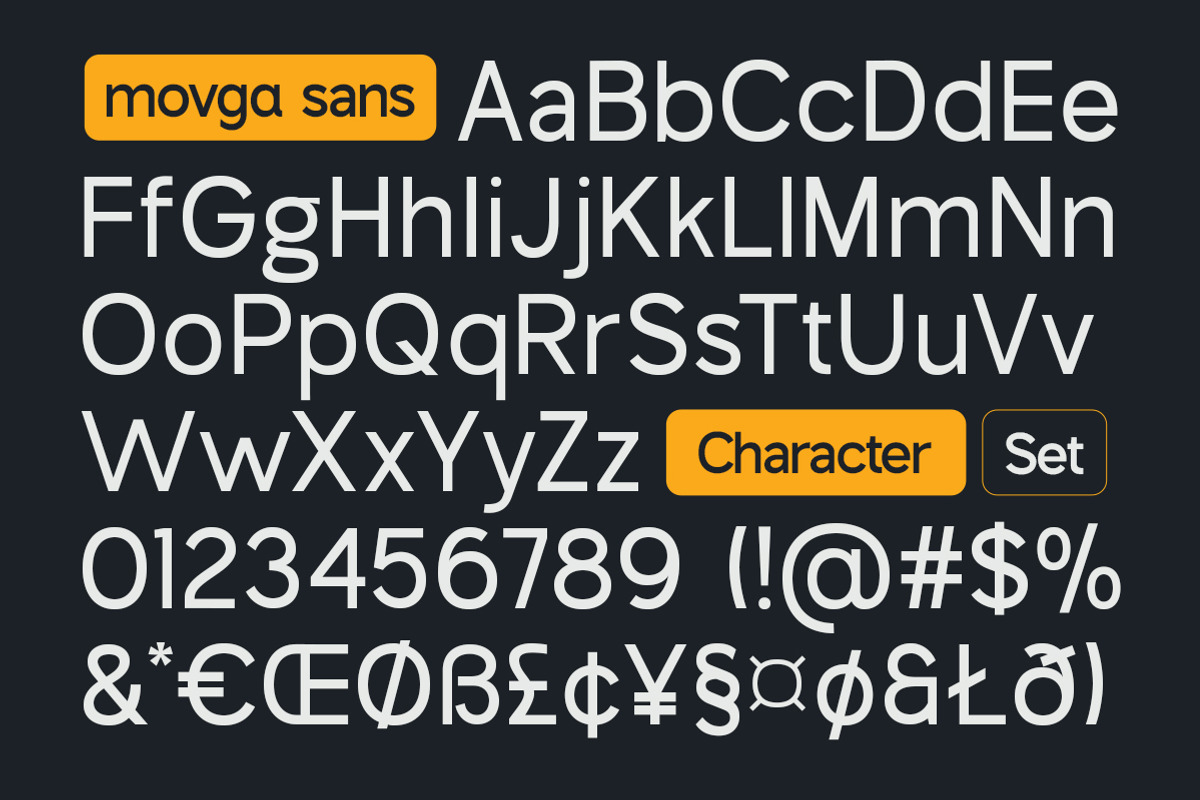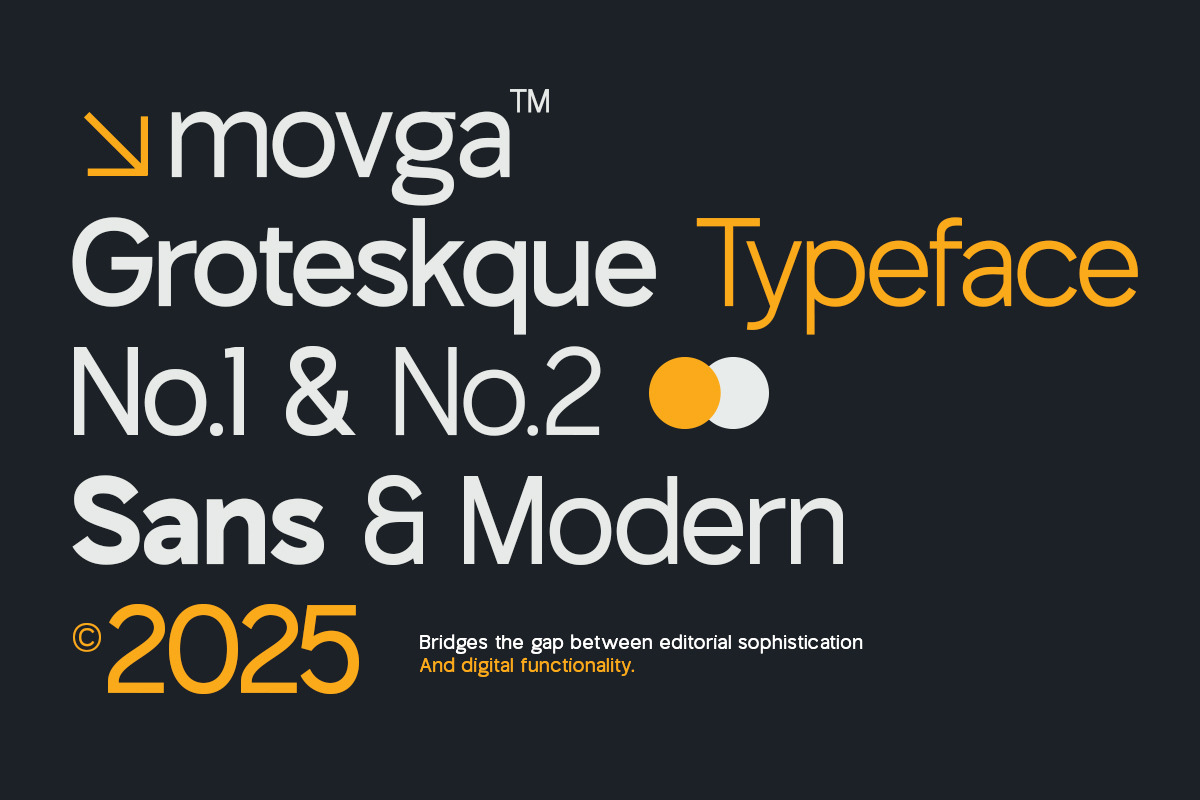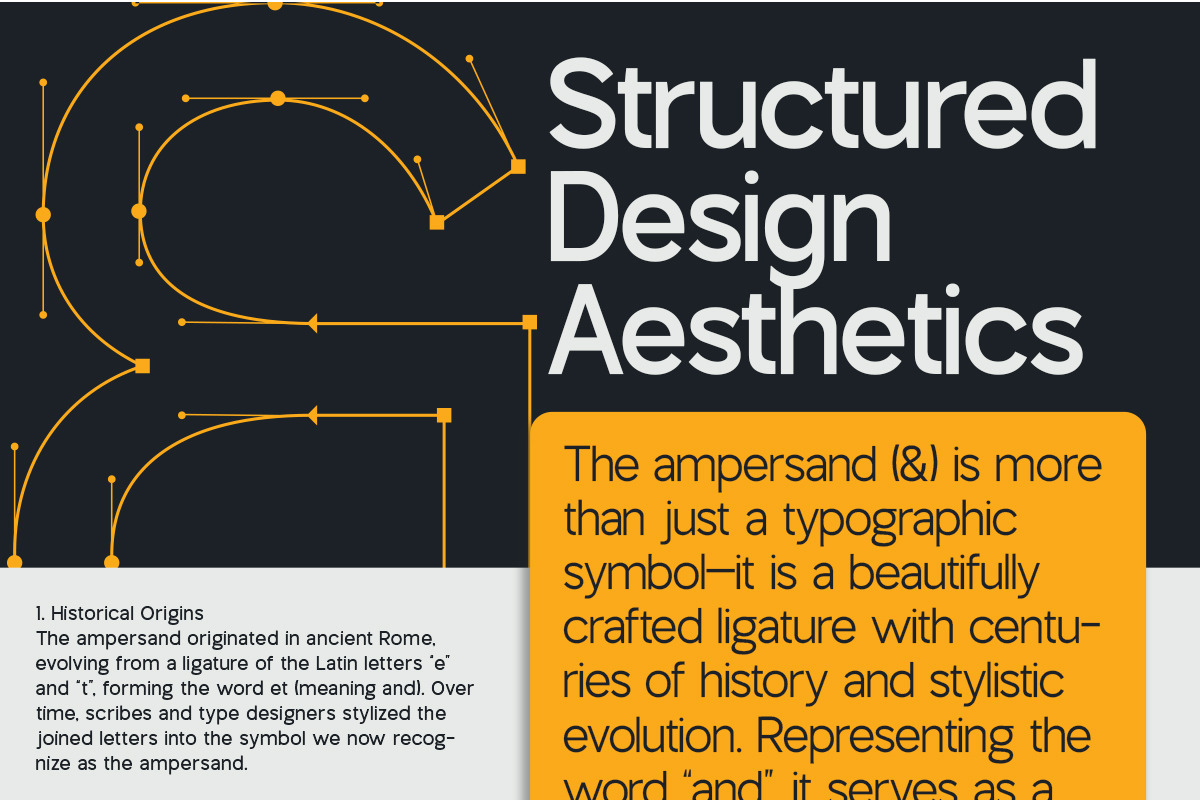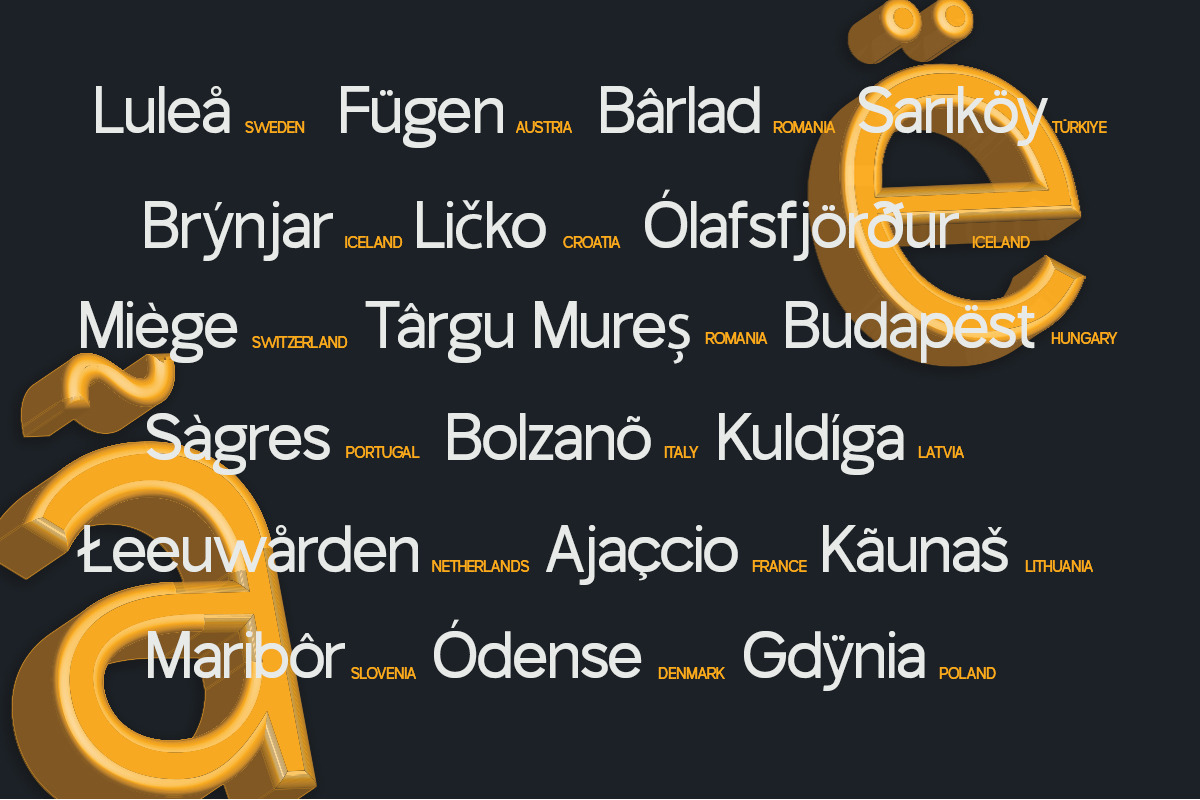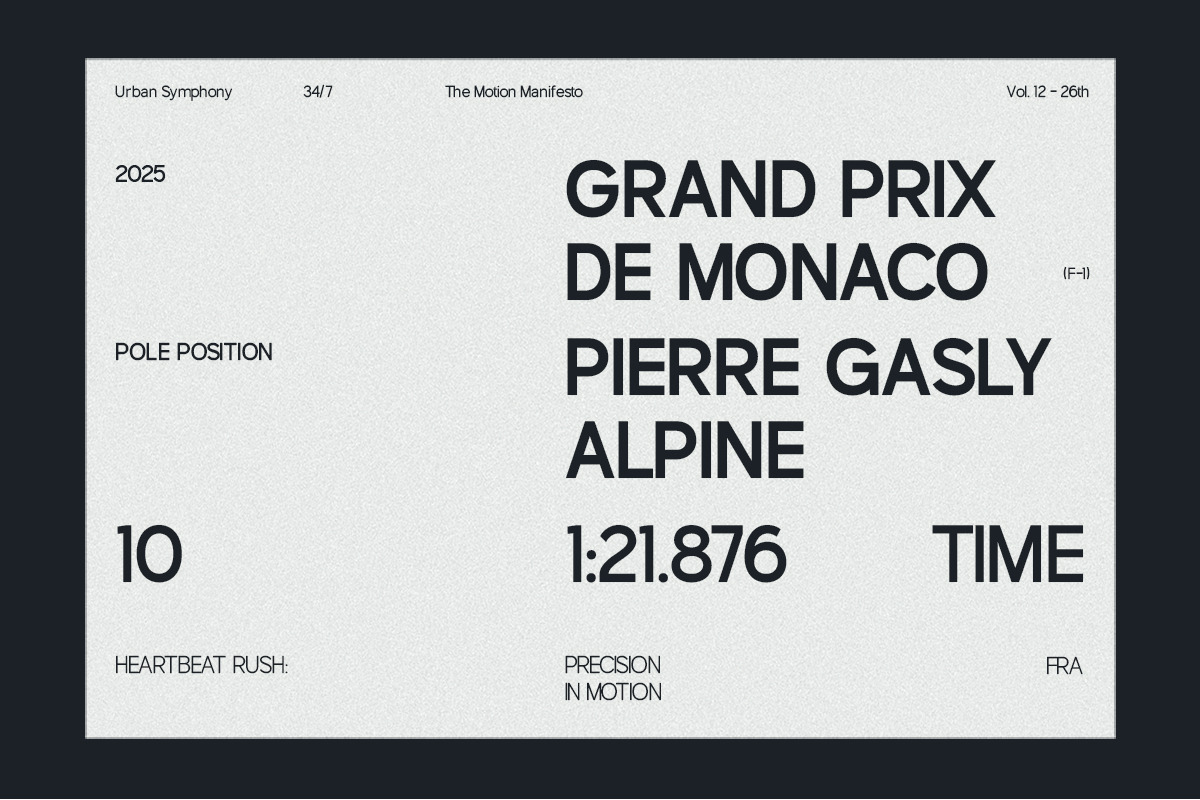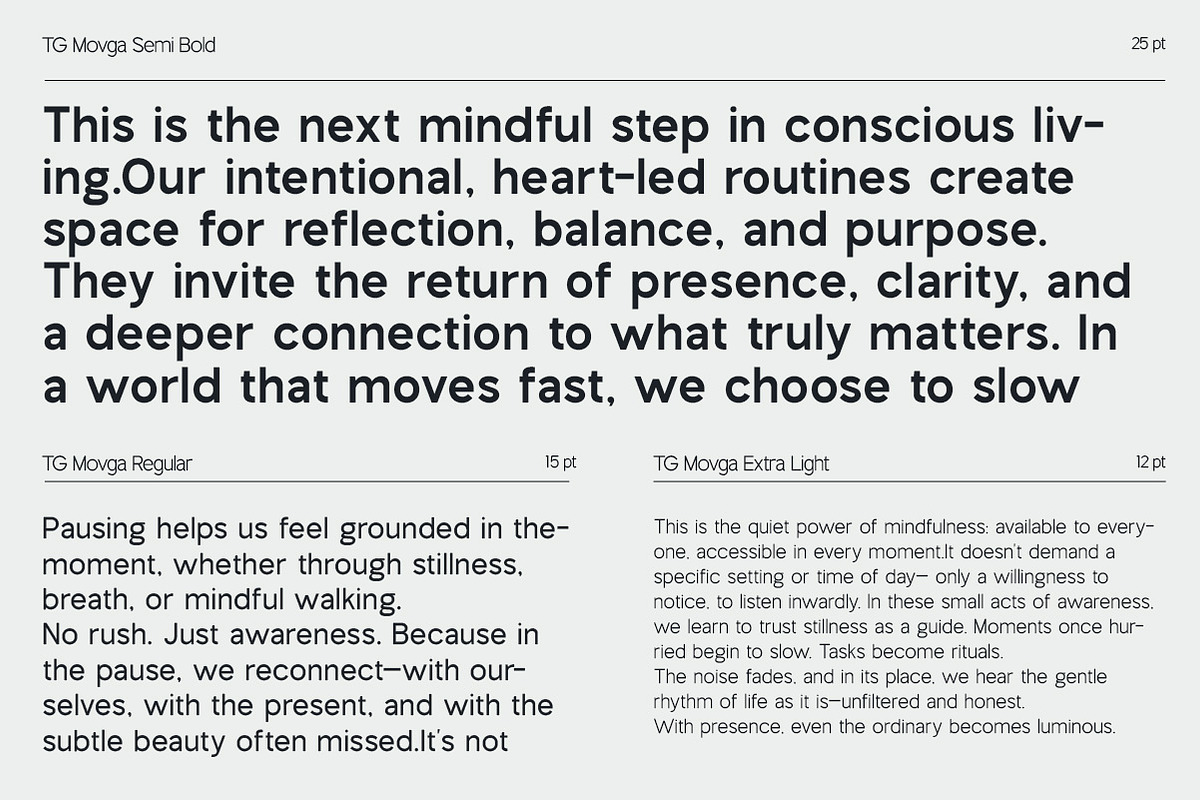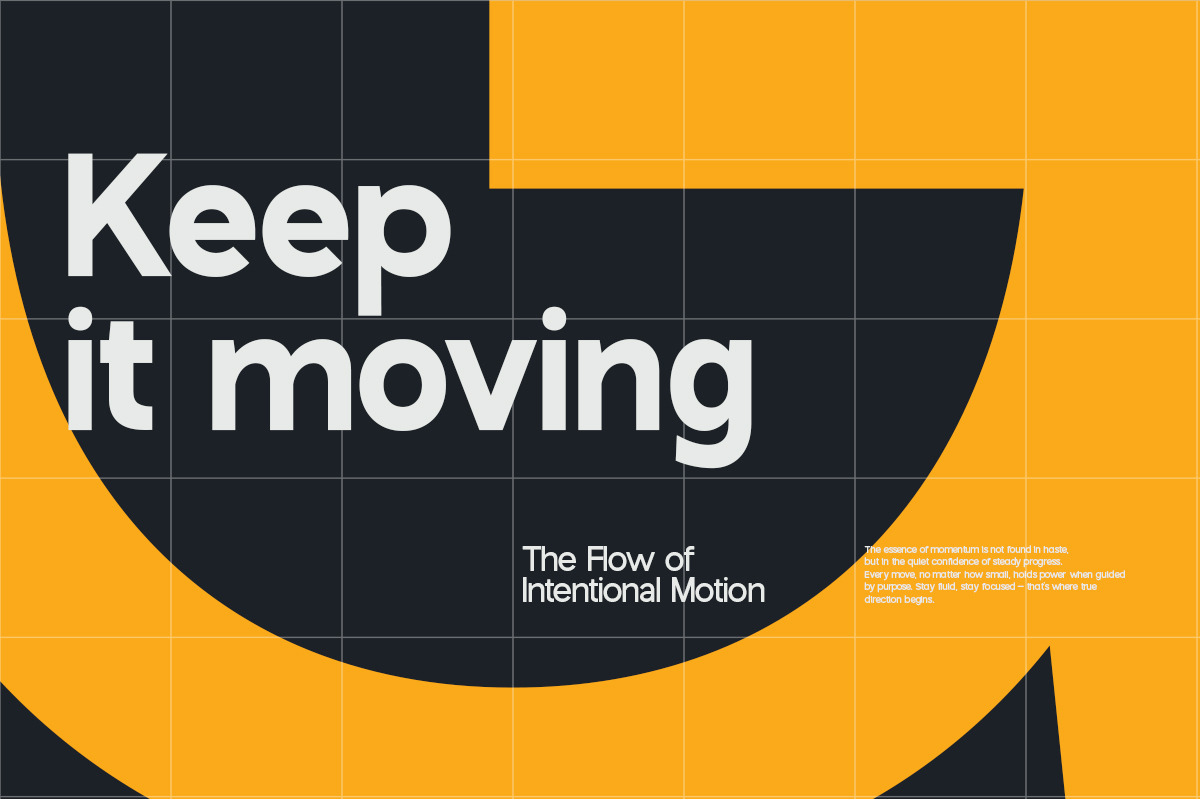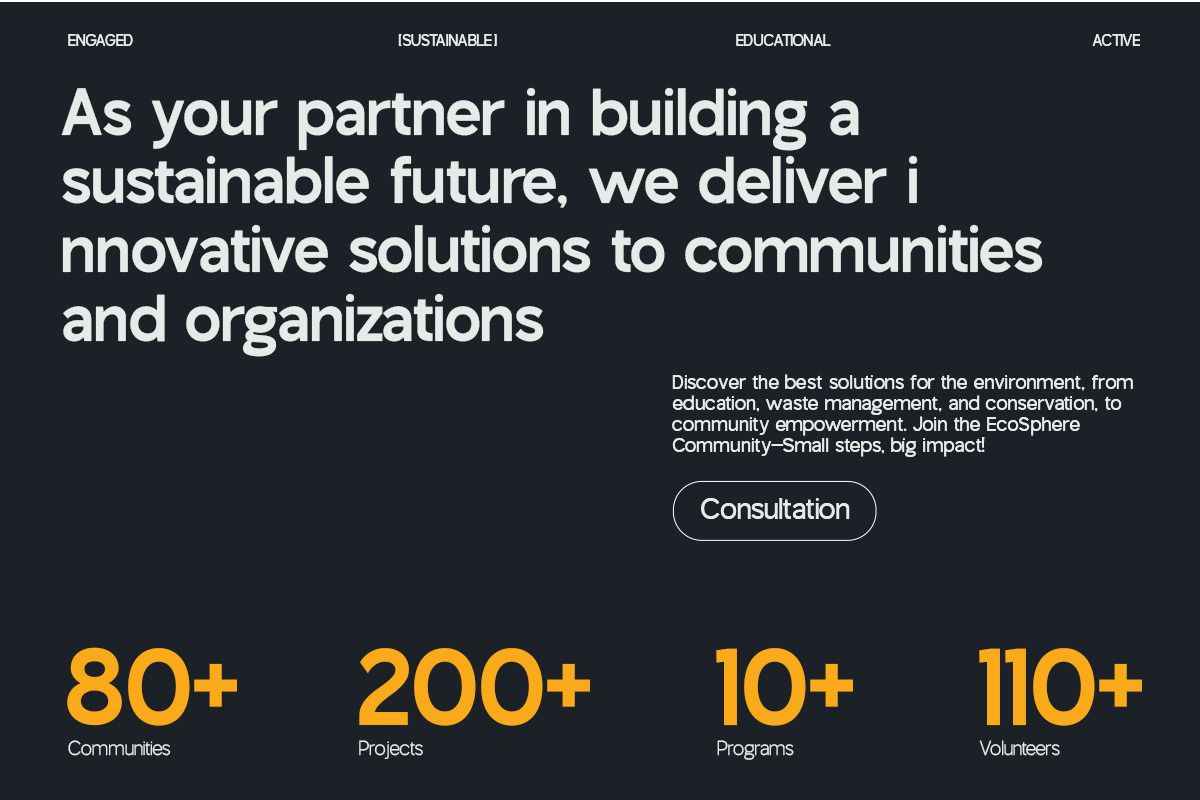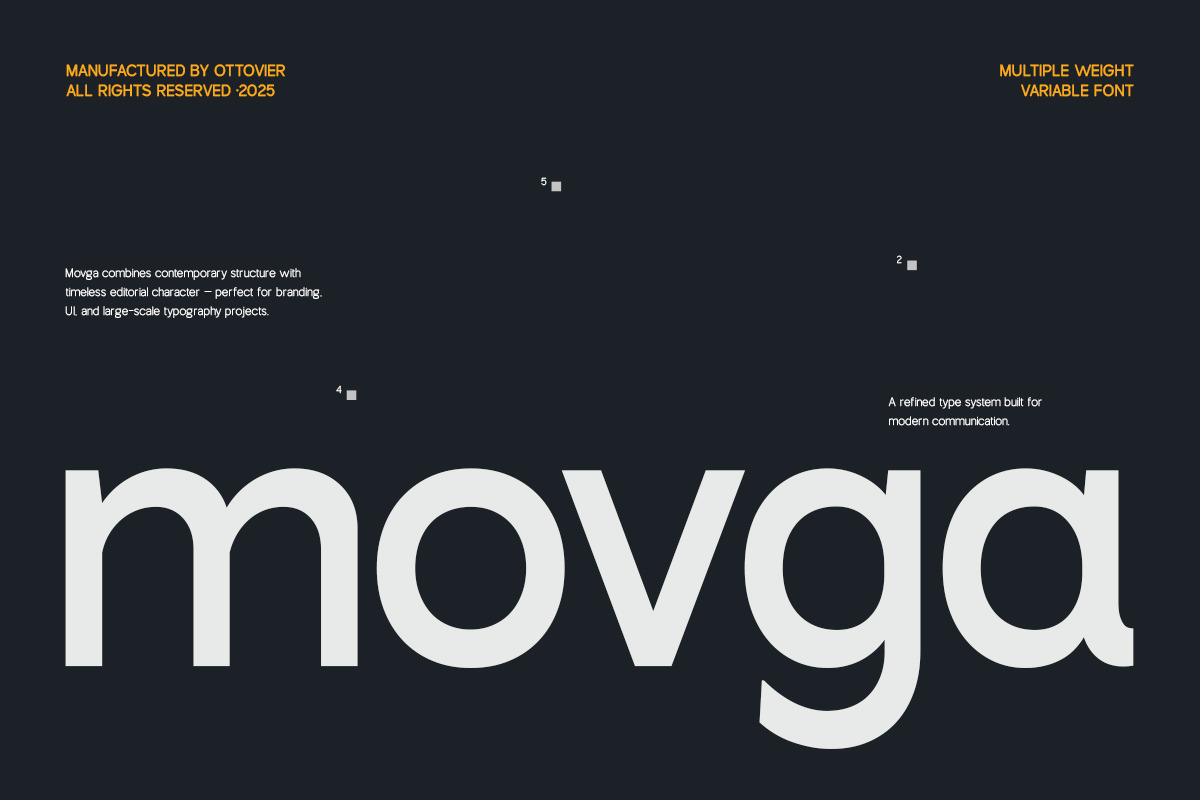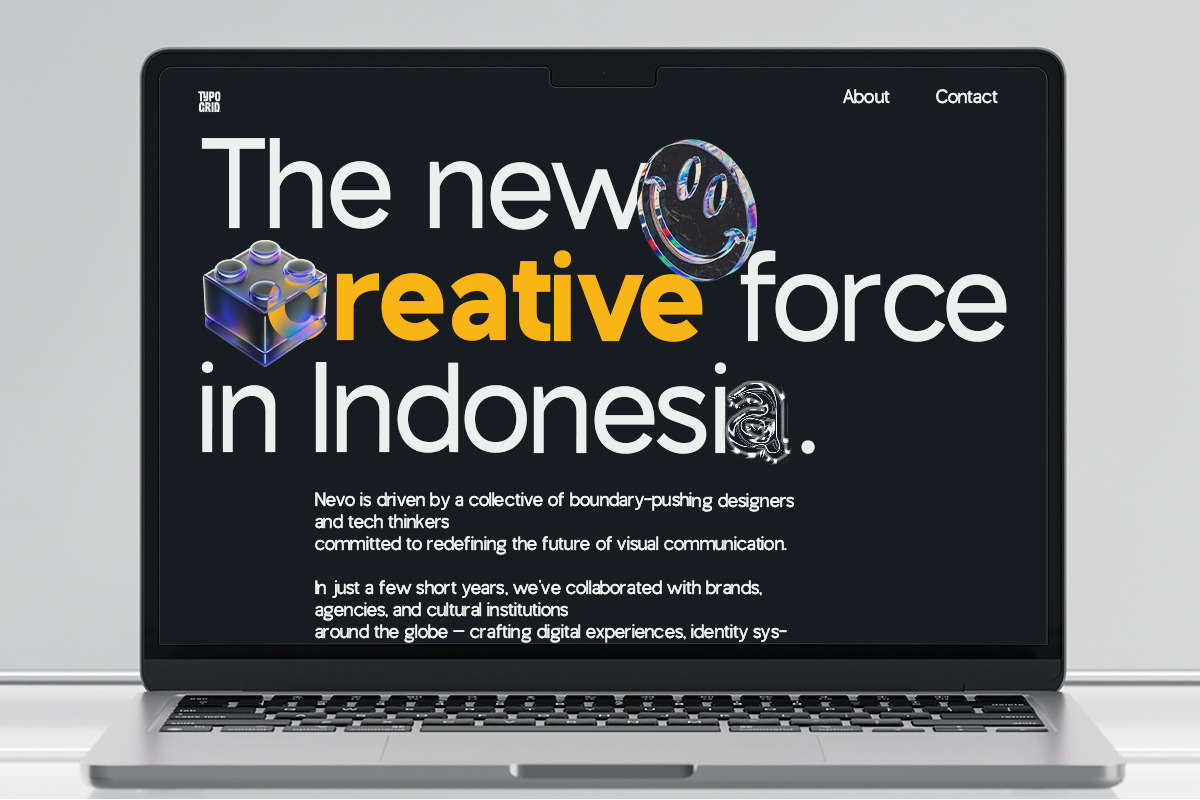
Movga Sans Grotesque Family
Movga is a contemporary sans serif typeface designed to blend editorial elegance with digital precision. Built with clean geometry, balanced proportions, and refined details, Movga delivers strong visual clarity while maintaining a timeless aesthetic.
Created for modern creative workflows, Movga performs beautifully across multiple platforms — from branding systems and UI design to large-scale typography and print publications. Its versatile structure makes it ideal for designers who need consistency, flexibility, and impact in one type family.
With multiple weights and variable font support, Movga gives you full control over typography rhythm and hierarchy. Whether you're designing bold headlines, sleek interfaces, or minimalist layouts, Movga adapts effortlessly to your creative direction. Perfect For: • Branding & Visual Identity • Editorial & Magazine Layouts • UI/UX Design • Web & App Interfaces • Posters & Advertising • Presentation Design • Social Media Graphics Features: • Modern Sans Serif Typeface • Multiple Weights • Variable Font Included • Clean & Minimal Design • Excellent Readability • Multilingual Support • Desktop & Web Ready Movga is more than just a font — it’s a refined type system built for modern communication.